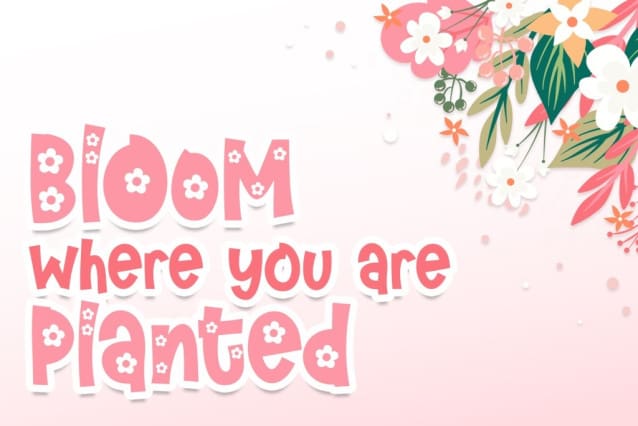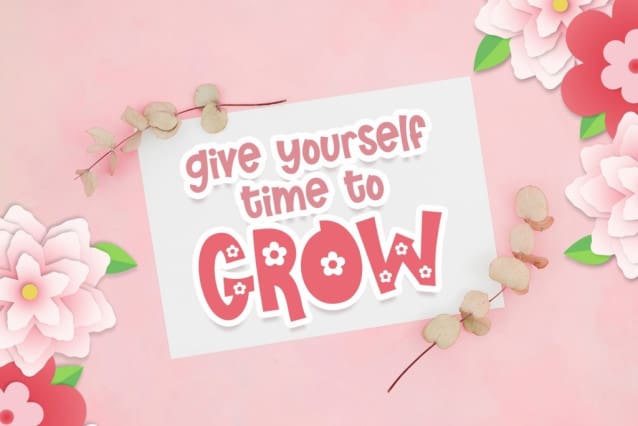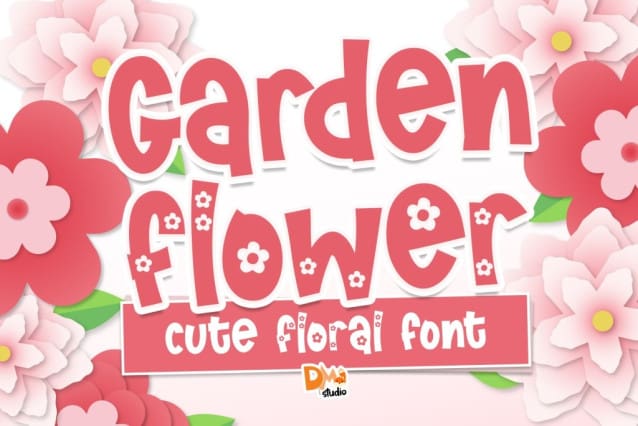
Garden Flower Font
Garden Flower Font is a graceful and organic typeface that brings the beauty of blooming gardens to your designs. Inspired by delicate flowers and natural elegance, this font is perfect for projects that require a touch of botanical charm. Crafted with precision, the font seamlessly combines floral elements with versatile letterforms, making it ideal for a wide range of design applications.